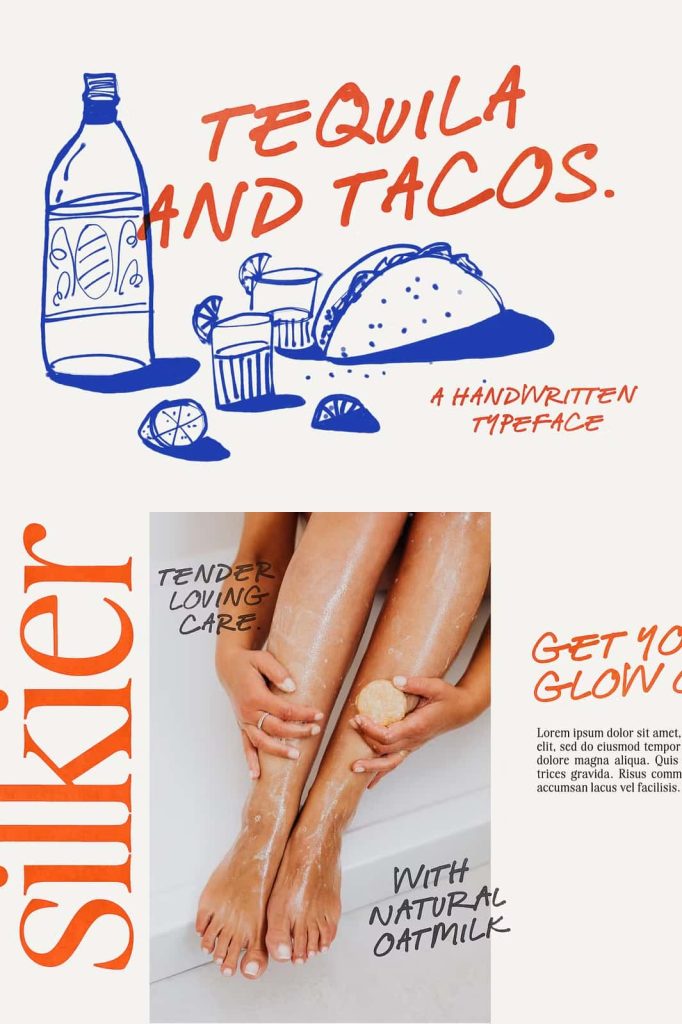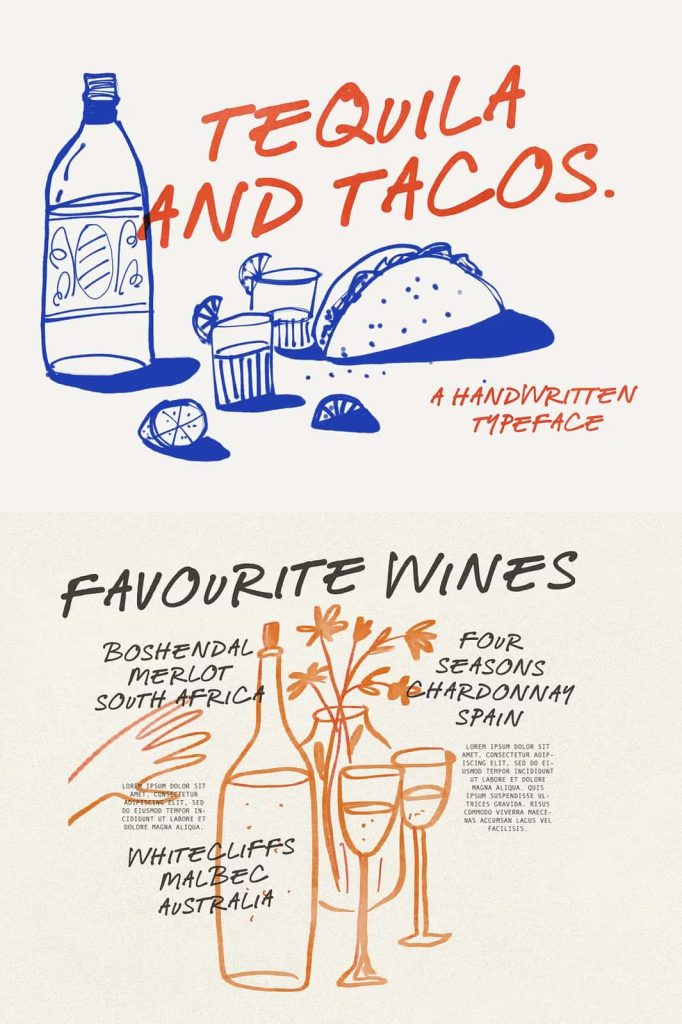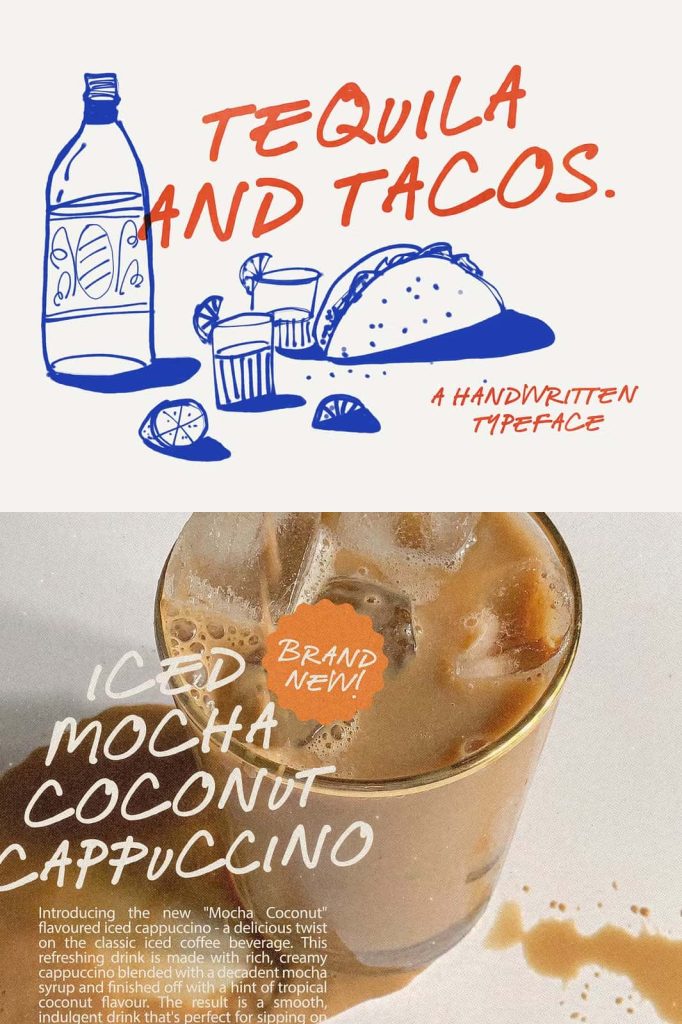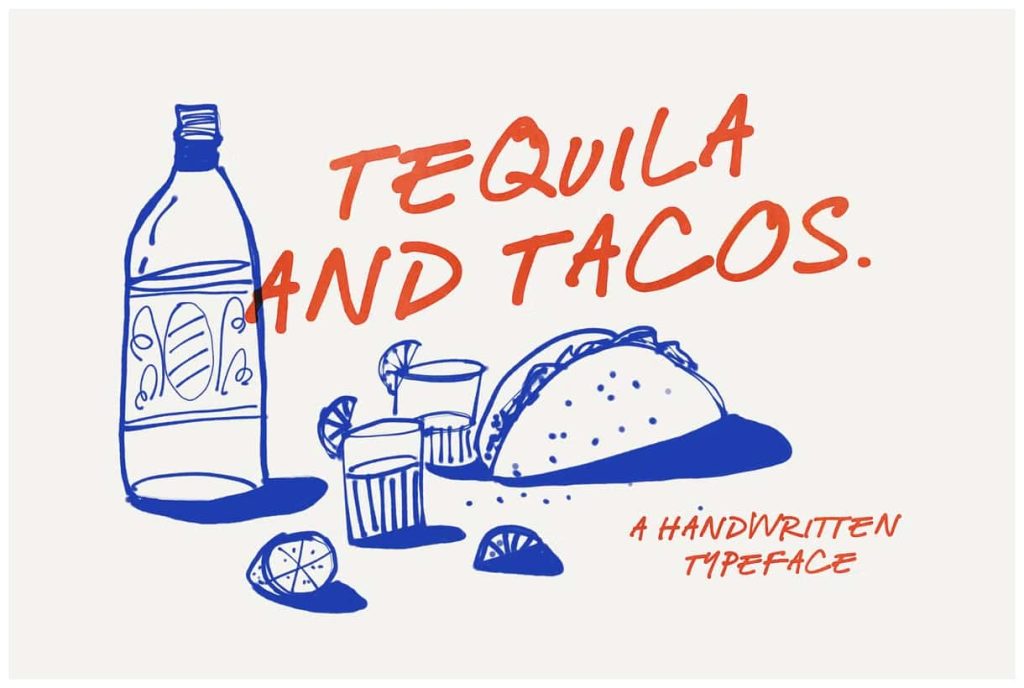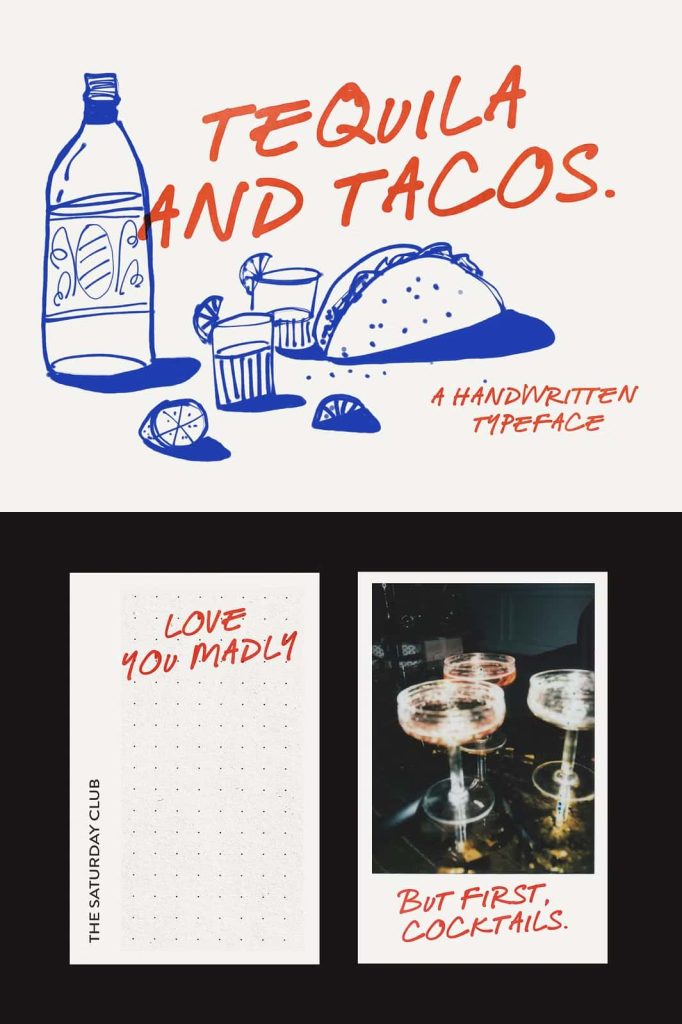
Tequila and Tacos Font: A Casual Handwritten Style with Personality and Purpose
Tequila and Tacos is a playful yet professional handwritten font designed to bring a casual, carefree energy to your creative work. While the name instantly sparks fun and spontaneity, the typeface itself is crafted with strong design intention. Its natural flow, unique handwritten texture, and expressive variations give your projects a friendly, approachable tone without sacrificing structure or clarity. Tequila and Tacos offers the perfect blend of creative looseness and visual reliability, making it a versatile choice for both personal and commercial use.
A Handwritten Typeface Designed to Look Carefree but Built with Purpose
At first glance, Tequila and Tacos feels relaxed, lively, and effortless—just like handwriting scribbled quickly on a notepad. However, behind its laid-back personality lies thoughtful craftsmanship aimed at delivering a smooth, natural, and visually appealing handwritten effect. The font mimics authentic handwriting by incorporating subtle inconsistencies, fluid curves, and natural pen pressure variations. These handcrafted elements make your text feel warm, personal, and full of character.
What truly makes Tequila and Tacos unique is its clever letter structure. While the typeface consists of uppercase characters, the uppercase and lowercase keys do not produce identical glyphs. Instead, typing with either key produces different style variations of the same letter. This dual-style approach enhances randomness and organic visual rhythm, closely replicating real handwriting. As a result, your text appears more dynamic, natural, and expressive than traditional uppercase-only display fonts.
Perfect for Branding, Packaging, Social Media, and Creative Displays
Tequila and Tacos thrives in design environments where personality and approachable style are essential. Its friendly handwritten vibe makes it an excellent choice for branding projects in lifestyle, food, fashion, wellness, and artisanal product markets. Whether you want to create a logo with a warm human touch or product packaging that feels handmade, this font delivers energy and authenticity.
Social media designers will appreciate how well Tequila and Tacos performs in casual posts, quote graphics, content banners, and marketing visuals. Its expressive character helps you build connection, spark engagement, and add charm to your content. It also works beautifully for café menus, restaurant branding, boutique signage, greeting cards, DIY crafts, invitations, and personal creative projects that require a touch of personality and fun.
A Natural Handwriting Effect Through Dual Uppercase Character Variations
One of the most distinctive features of Tequila and Tacos is its two-style uppercase system. The difference between keystrokes offers the perfect level of variation, allowing designers to avoid repetitive shapes and give every word a more natural rhythm. This approach mimics the way humans rarely write a letter exactly the same way twice.
By mixing uppercase and lowercase inputs, you can craft text that feels spontaneous, handwritten, and organic. This makes Tequila and Tacos particularly effective in designs that aim to communicate friendliness, creativity, and personality. It is a font that truly feels alive on the page.
Bring Carefree Creativity and Natural Charm to Your Projects
Tequila and Tacos is more than a fun name—it is a thoughtfully built handwritten typeface designed to elevate your creative storytelling. Whether you want to add warmth to branding, charm to packaging, or personality to social media content, this font helps you communicate with authenticity and style. Its natural handwritten flow and dual uppercase structure empower you to craft text that feels expressive, human, and engaging.
If you are looking for a typeface that looks casual and carefree but still carries the professionalism needed for strong design, Tequila and Tacos is the perfect addition to your font library. Bring your ideas to life with a handwriting font that captures fun, creativity, and character in every stroke.